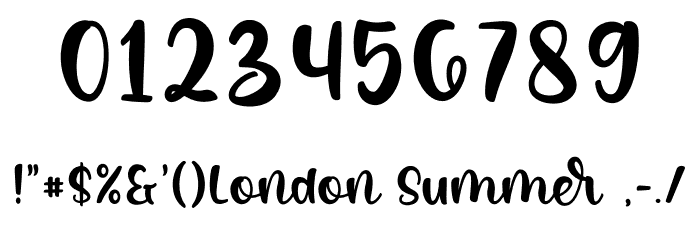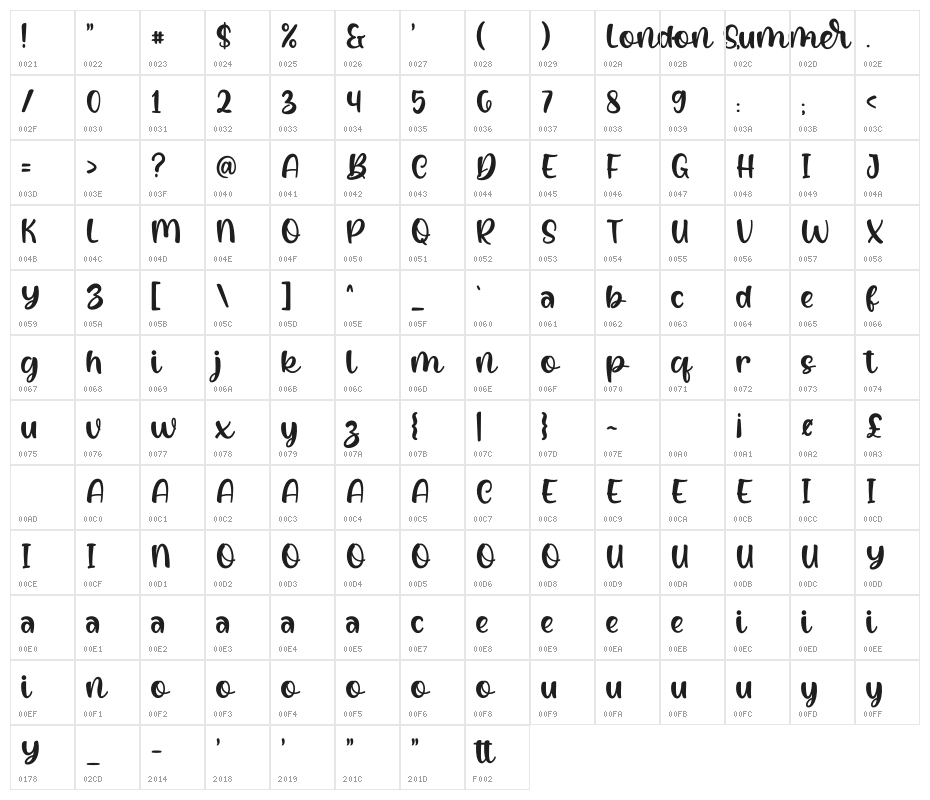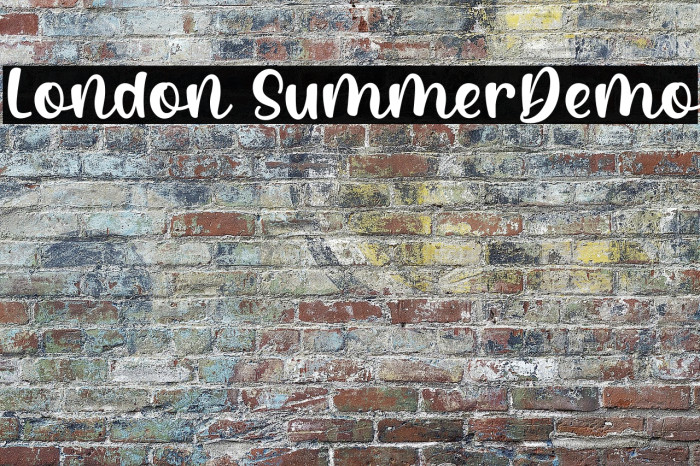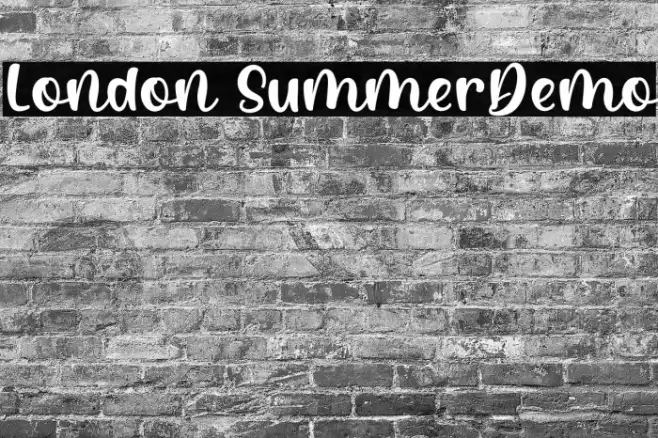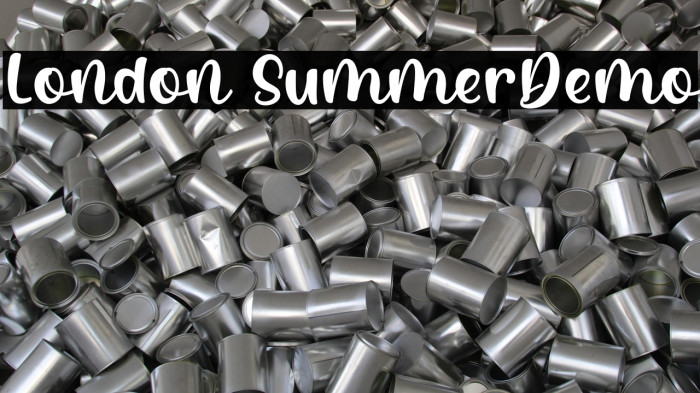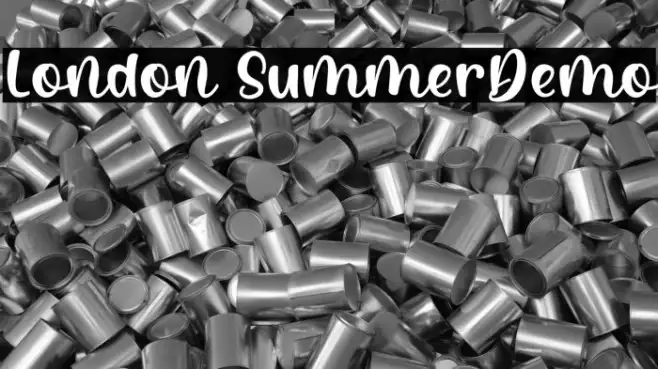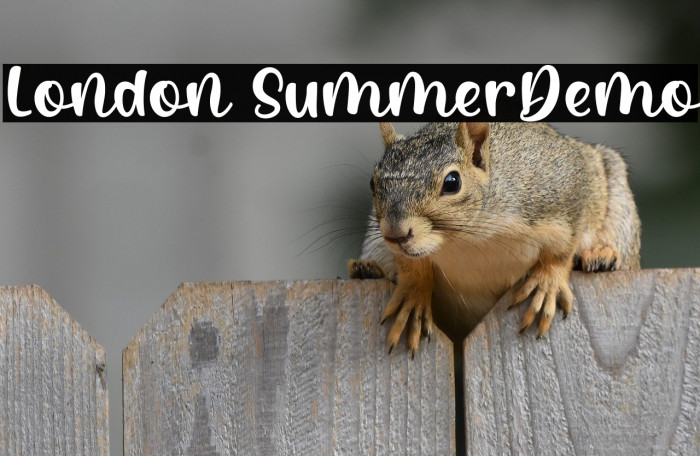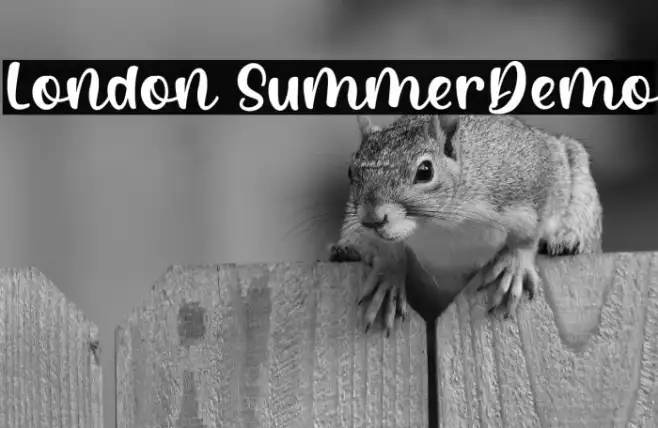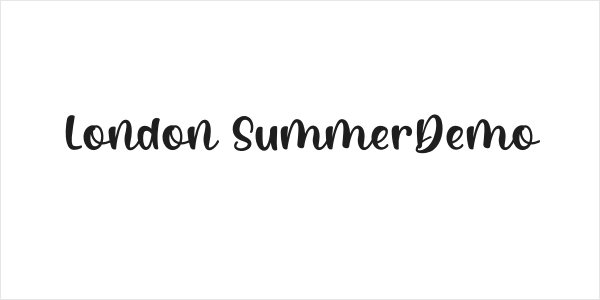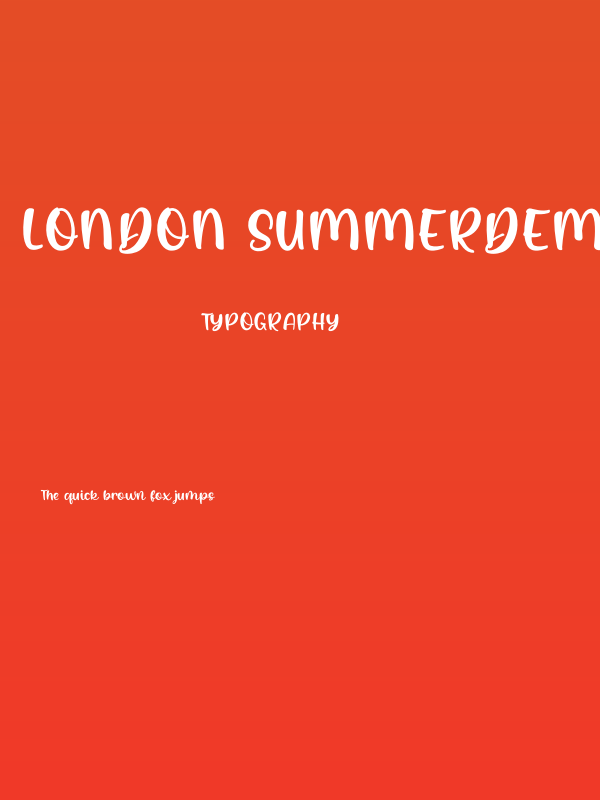
London SummerDemo Font
London SummerDemo Description
This font features a playful and energetic script style, characterized by its bold and flowing letterforms. The strokes are thick and consistent, giving it a strong presence on the page. The letters are slightly slanted, adding a dynamic and casual feel. The uppercase letters are prominent and well-defined, while the lowercase letters maintain a cohesive and harmonious flow. The numbers are equally bold, ensuring readability. Special characters are included, maintaining the same lively style. This font is perfect for projects that require a fun and engaging aesthetic.